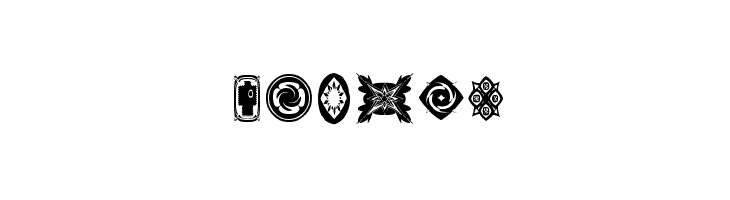
Ornamental symbol font with diverse decorative motifs.
Ornamental, decorative glyph set with geometric and floral motifs.
A decorative font with abstract, tribal-inspired designs and intricate patterns.
A decorative and abstract font with intricate patterns and bold shapes.